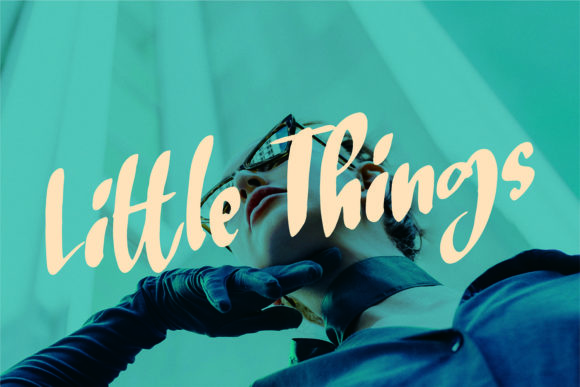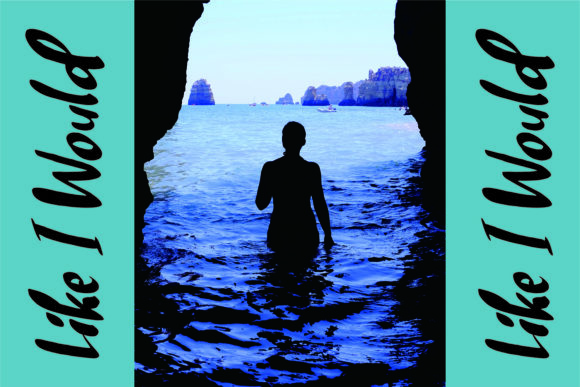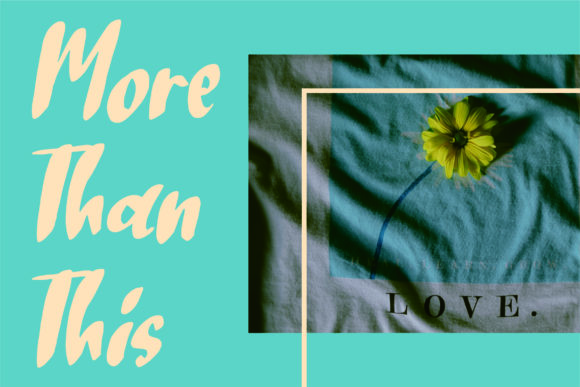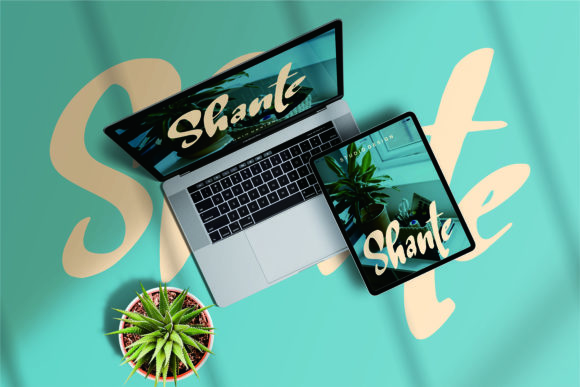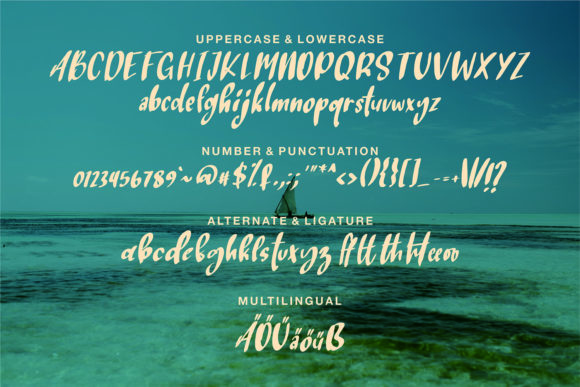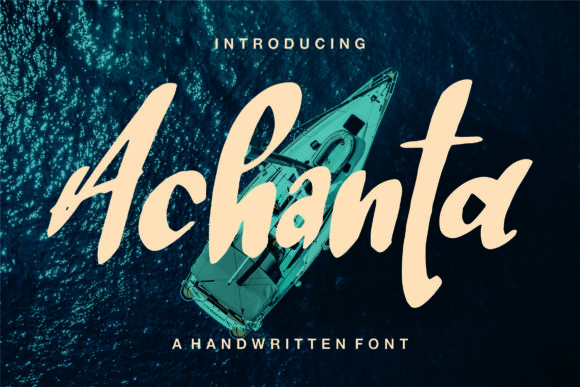
Achanta Font: Elevate Your Designs with Authentic Typography
In the world of typography, a good font can make all the difference in creating a lasting impression. For designers and crafters looking for a unique and authentic touch, Achanta Font is an excellent choice. This bold and beautifully flowing handwritten font is perfect for projects that require a personal and distinctive feel. In this article, we’ll explore the features and benefits of Achanta Font, and how it can elevate your designs to the next level.
What is Achanta Font?
Achanta Font is a carefully crafted handwritten font that exudes elegance and sophistication. Its bold and flowing strokes make it perfect for a variety of design projects, from invitations and business cards to personal branding, logos, and more. The font’s unique characteristics and authentic feel make it an excellent choice for designers looking to add a touch of personality to their work.
Key Features of Achanta Font
- Bold and Beautifully Flowing Strokes: Achanta Font features bold and flowing strokes that give it a unique and elegant feel.
- Handwritten with Love: Each letter has been carefully crafted by hand, giving the font a personal and authentic touch.
- Perfect for Authentic Typography: Achanta Font is designed to provide an authentic and distinctive feel to your designs.
- Multipurpose: Use Achanta Font for a variety of design projects, including invitations, business cards, personal branding, logos, and more.
Benefits of Using Achanta Font
So, why choose Achanta Font for your design projects? Here are just a few benefits of using this amazing font:
- Adds a Personal Touch: Achanta Font’s handwritten feel adds a personal touch to your designs, making them more relatable and engaging.
- Stand Out from the Crowd: With its unique and distinctive feel, Achanta Font helps your designs stand out from the crowd and grab attention.
- Elegant and Sophisticated: The font’s elegant and sophisticated feel makes it perfect for high-end designs and luxury brands.
- Easy to Read: Despite its bold and flowing strokes, Achanta Font is easy to read, making it perfect for body text and headlines.
How to Use Achanta Font
Using Achanta Font is easy! Here are a few tips to get you started:
- Pair it with Other Fonts: Achanta Font pairs well with other fonts, so feel free to experiment with different combinations to find the perfect look for your design.
- Use it for Headlines and Body Text: Achanta Font is perfect for both headlines and body text, making it a versatile choice for a variety of design projects.
- Experiment with Colors and Textures: Achanta Font looks great in a variety of colors and textures, so don’t be afraid to experiment and find the perfect look for your design.
Design Ideas Using Achanta Font
- Invitations: Use Achanta Font to create beautiful and elegant invitations for weddings, parties, and other special events.
- Business Cards: Add a personal touch to your business cards with Achanta Font, making them more memorable and engaging.
- Personal Branding: Use Achanta Font to create a consistent and distinctive brand identity that reflects your personality and style.
- Logos: Achanta Font is perfect for creating unique and memorable logos that stand out from the crowd.
In conclusion, Achanta Font is an excellent choice for designers and crafters looking for a unique and authentic typography solution. Its bold and beautifully flowing handwritten strokes make it perfect for a variety of design projects, from invitations and business cards to personal branding, logos, and more. With its ease of use, versatility, and elegant feel, Achanta Font is sure to elevate your designs to the next level.